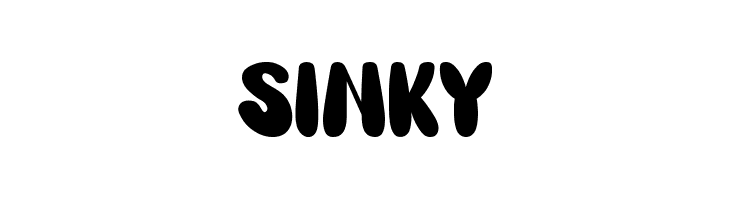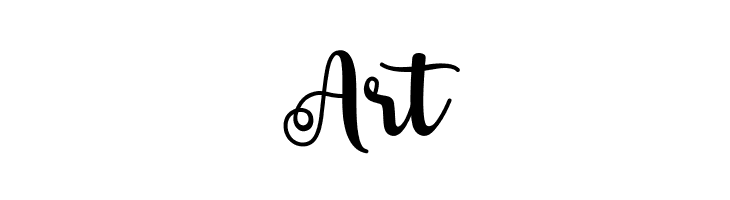
( K-Type - www.k-type.com )
A bold, italicized sans-serif font with a modern and assertive style.
( Fonts by Mr Fisk - Mike Larsson - fontorama.net )
A playful, hand-drawn font with bold, uneven strokes and a whimsical style.
( Fonts by Mr Fisk - Mike Larsson - fontorama.net )
A playful, hand-drawn outline font with a whimsical and energetic style.
( Fonts by Hamsah )
A bold, rounded, and playful font with a chunky appearance.
( Fonts by Chris Vile )
A bold, gothic-inspired script font with intricate, thorn-like details.
A classic serif font with elegant strokes and refined details.
A playful, hand-drawn style font with bold, rounded characters.
( Fonts by www.fontdiner.com )
A bold, hand-drawn font with textured, dynamic strokes.